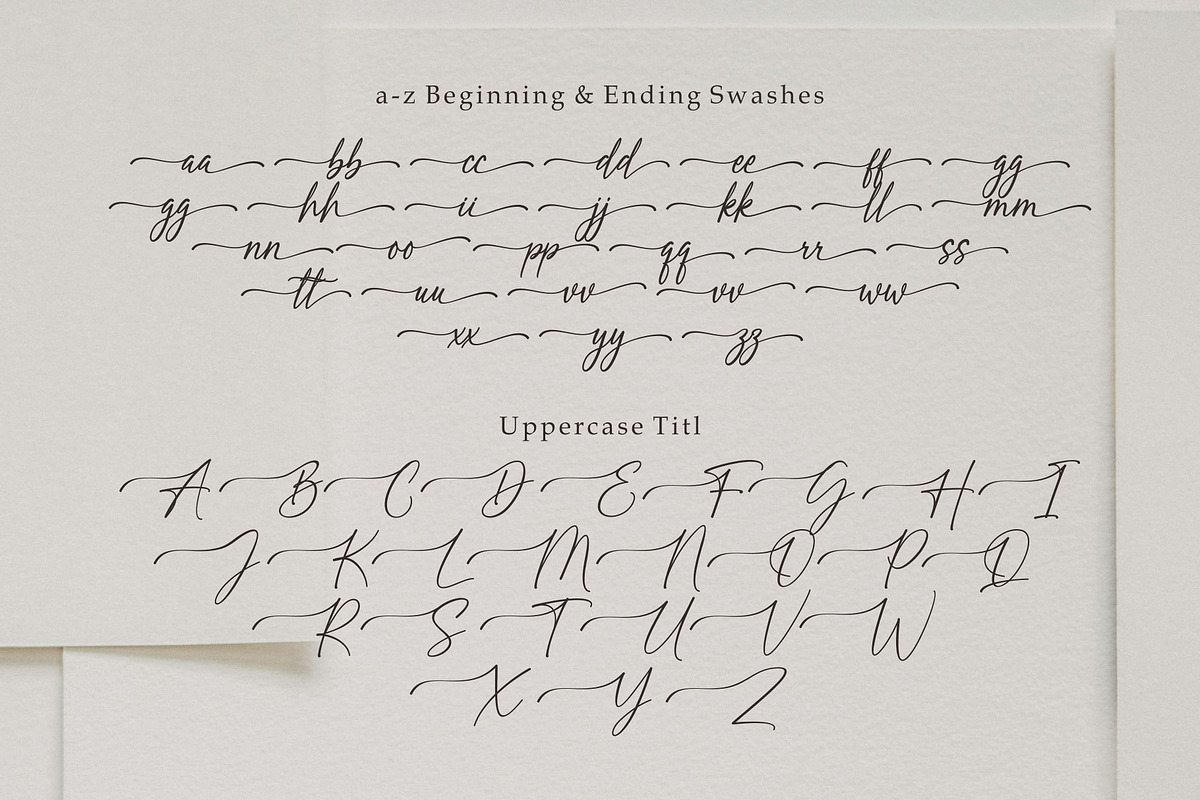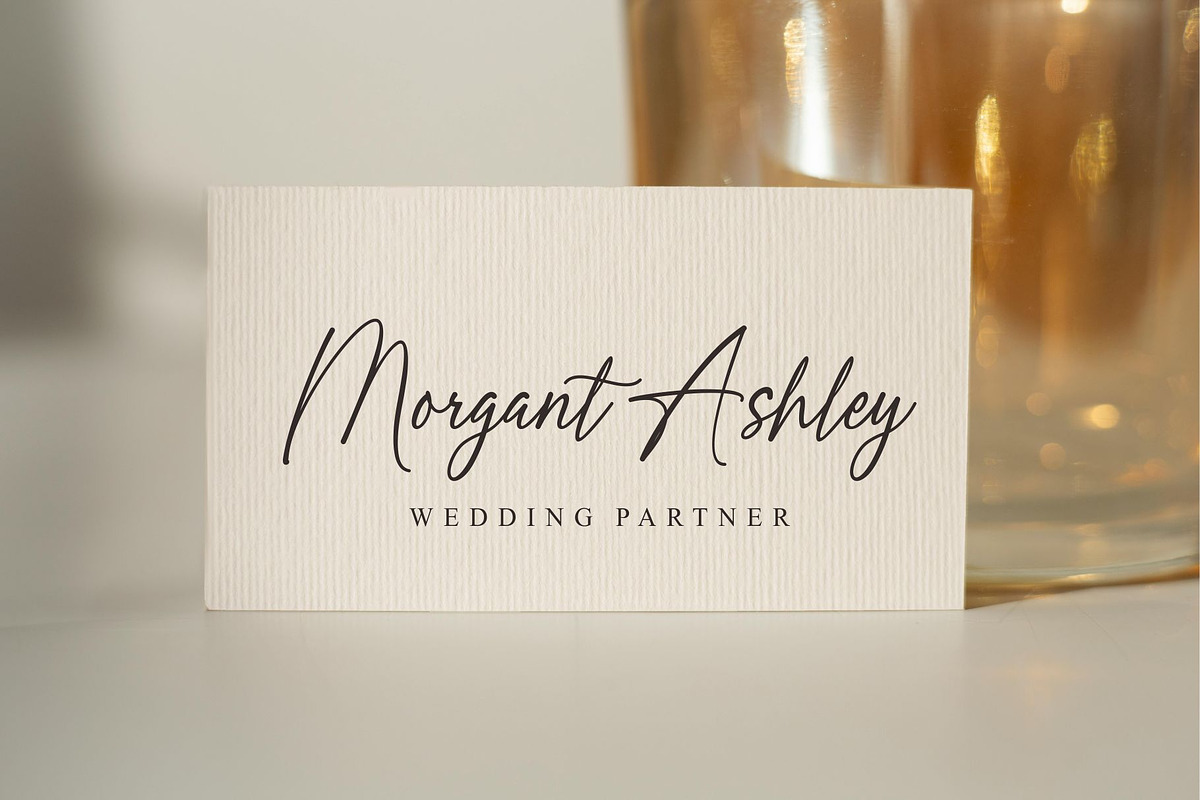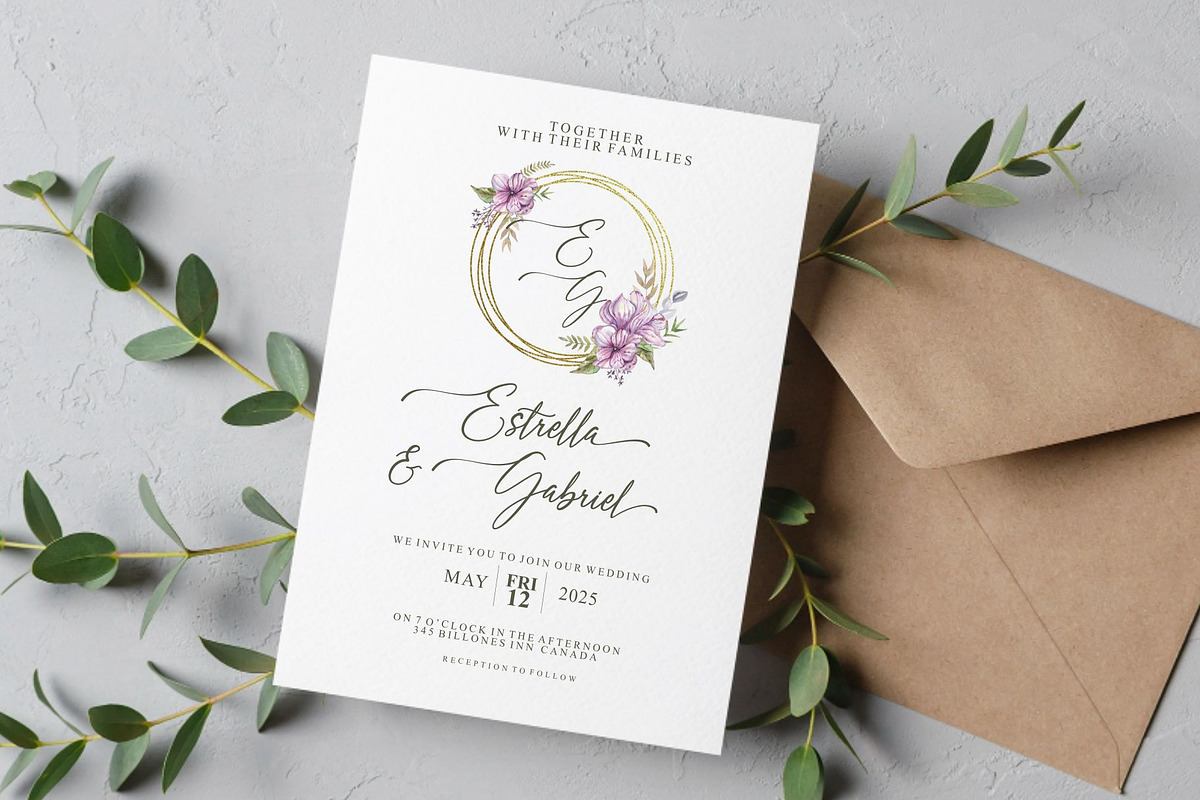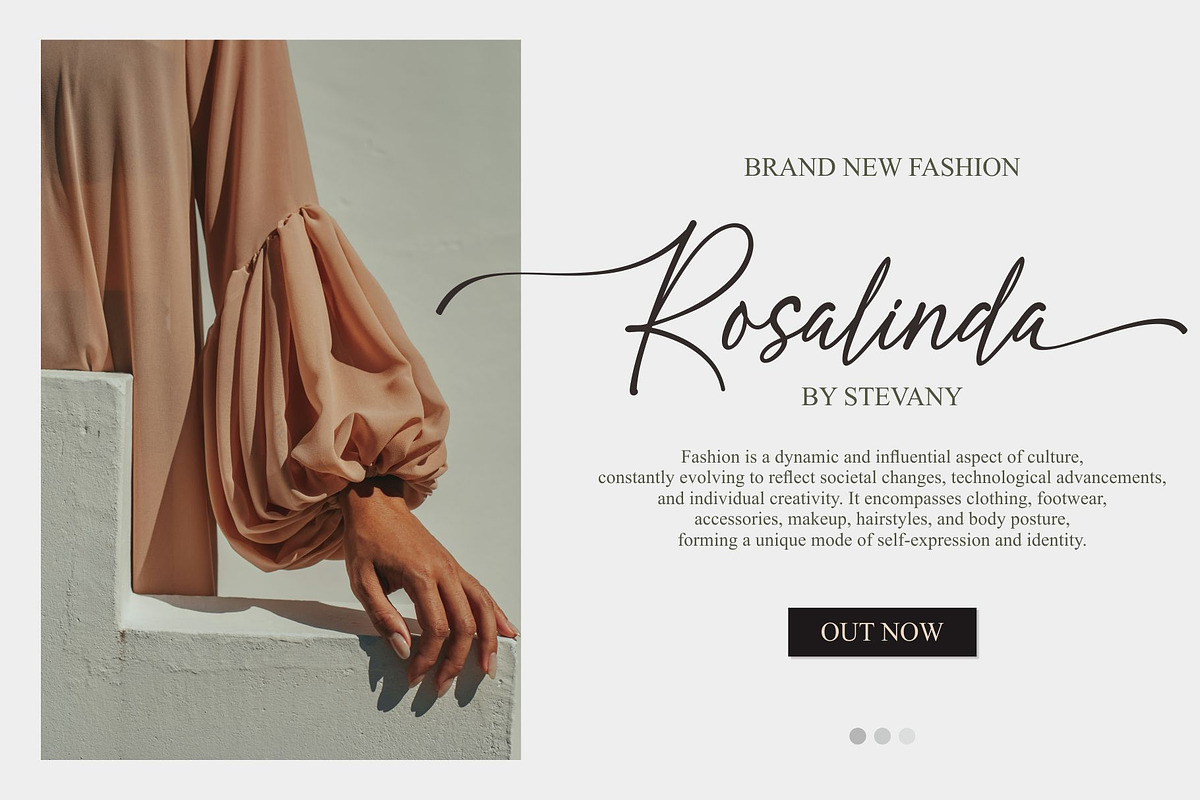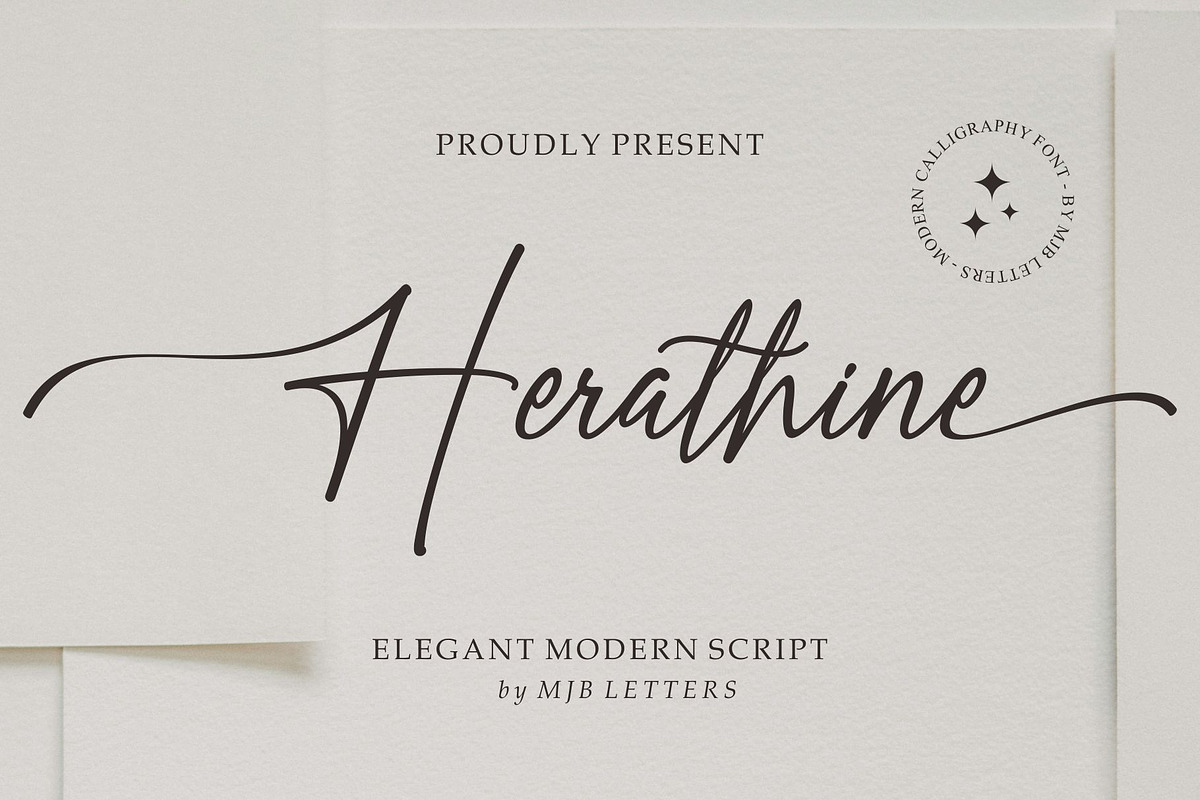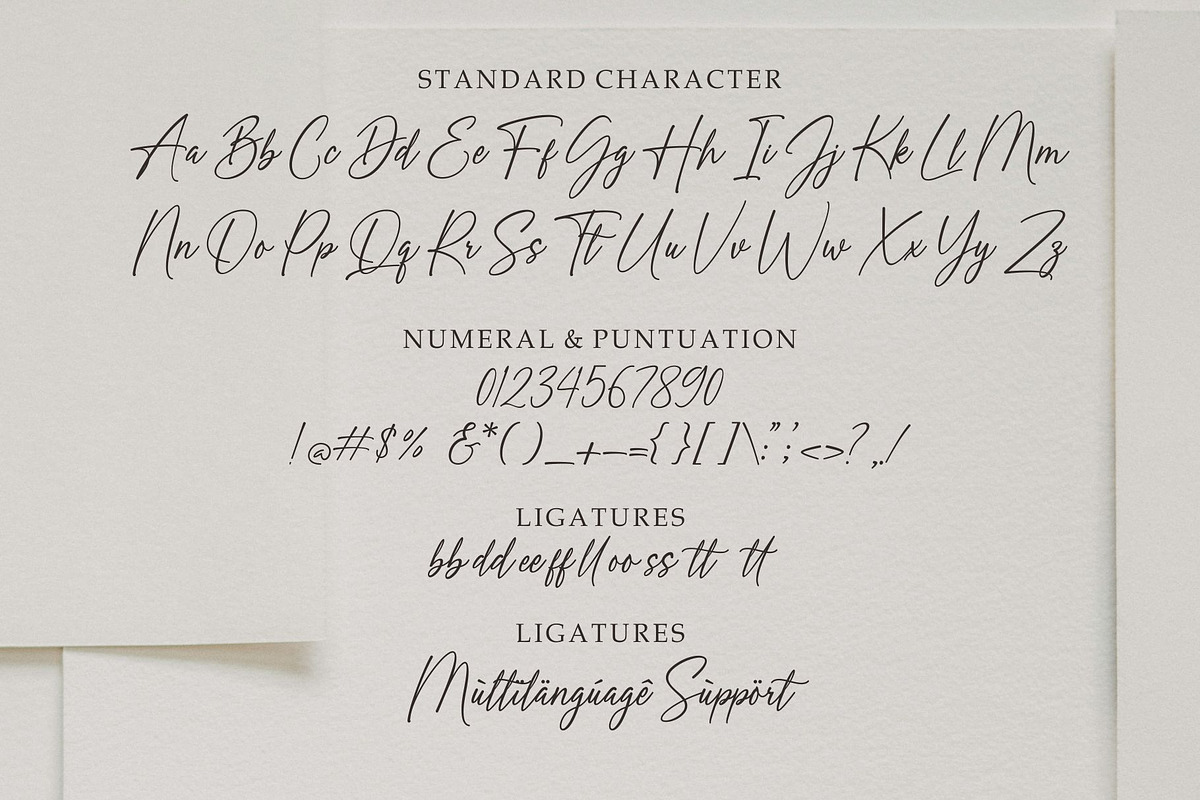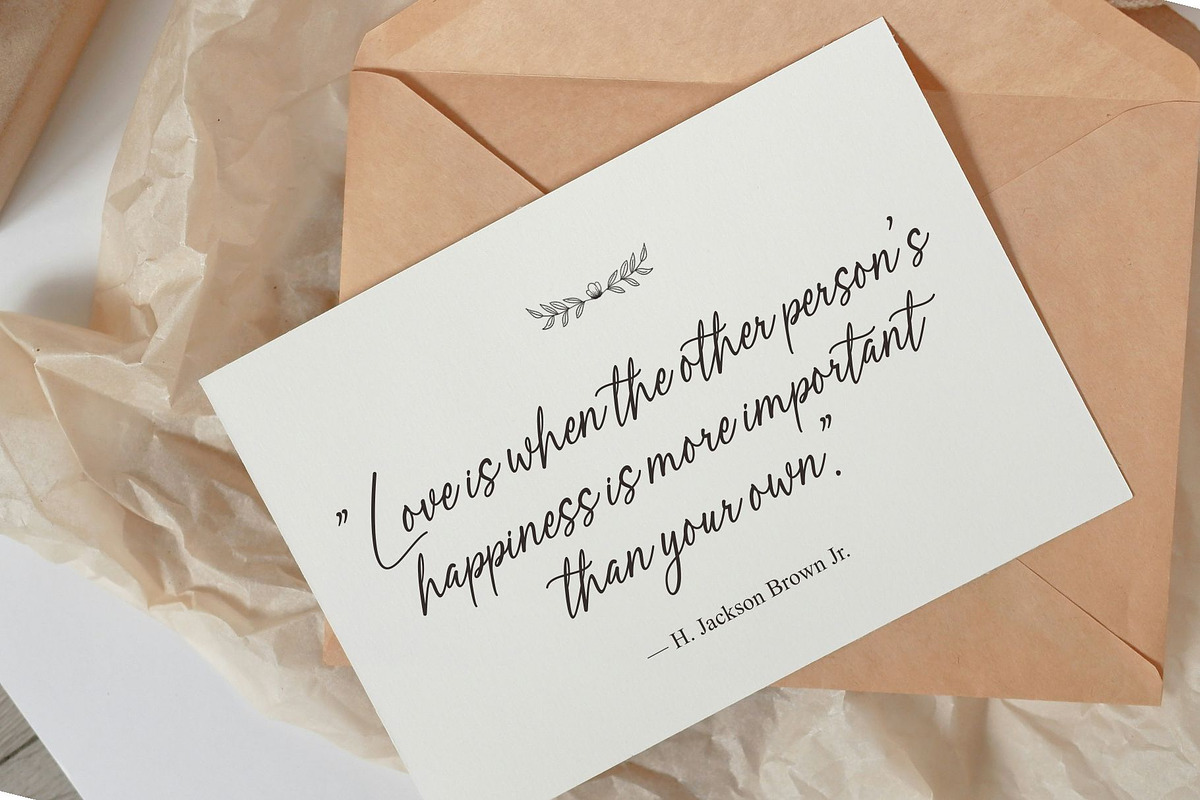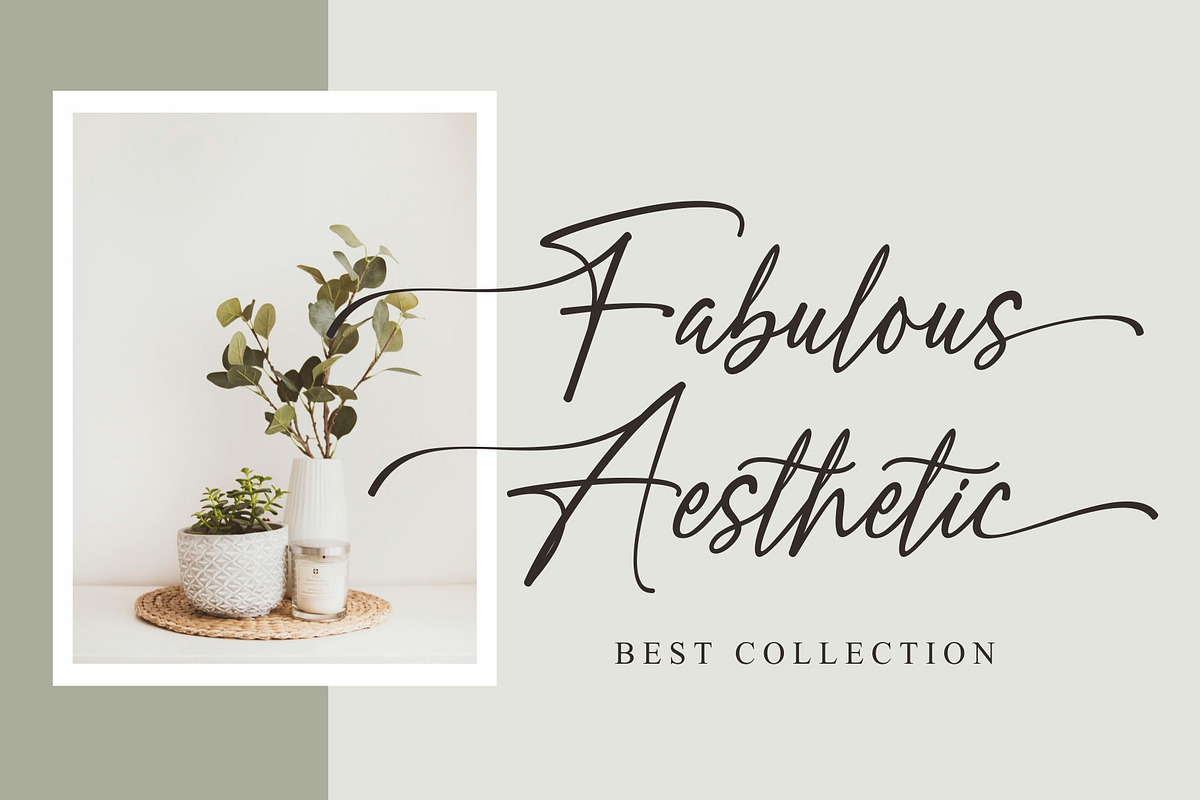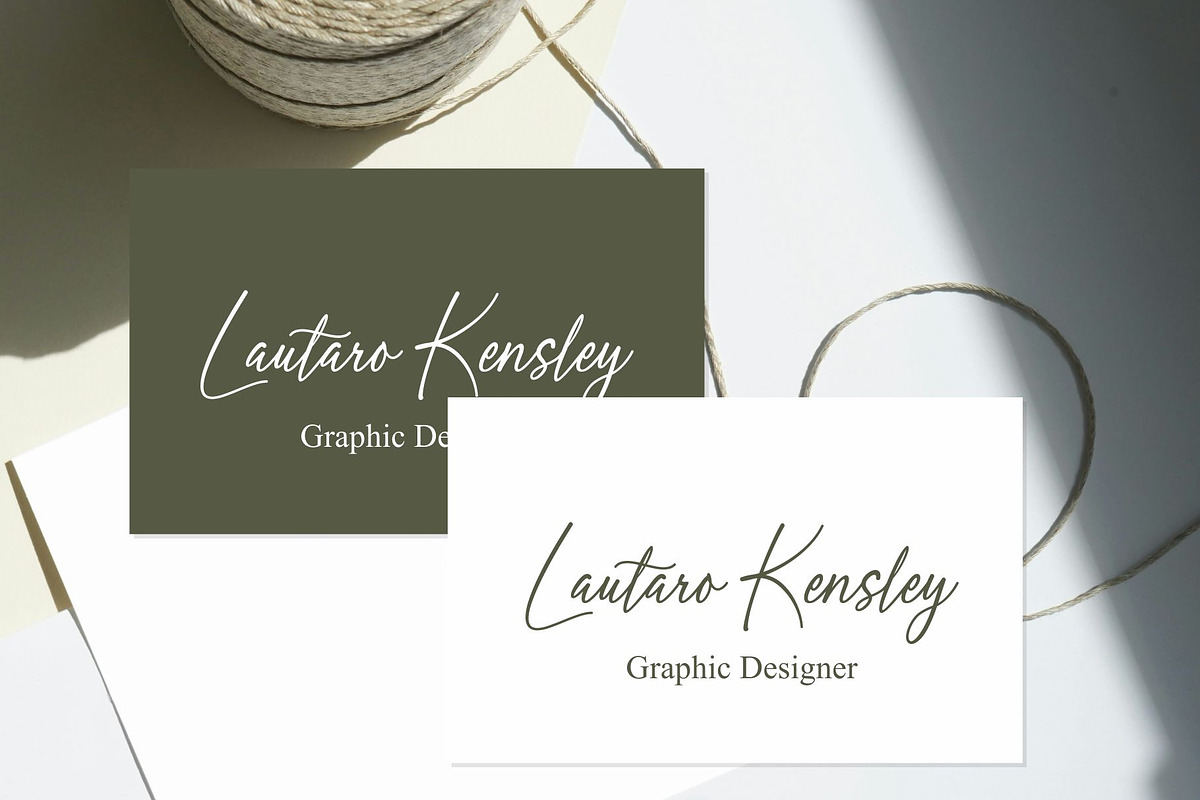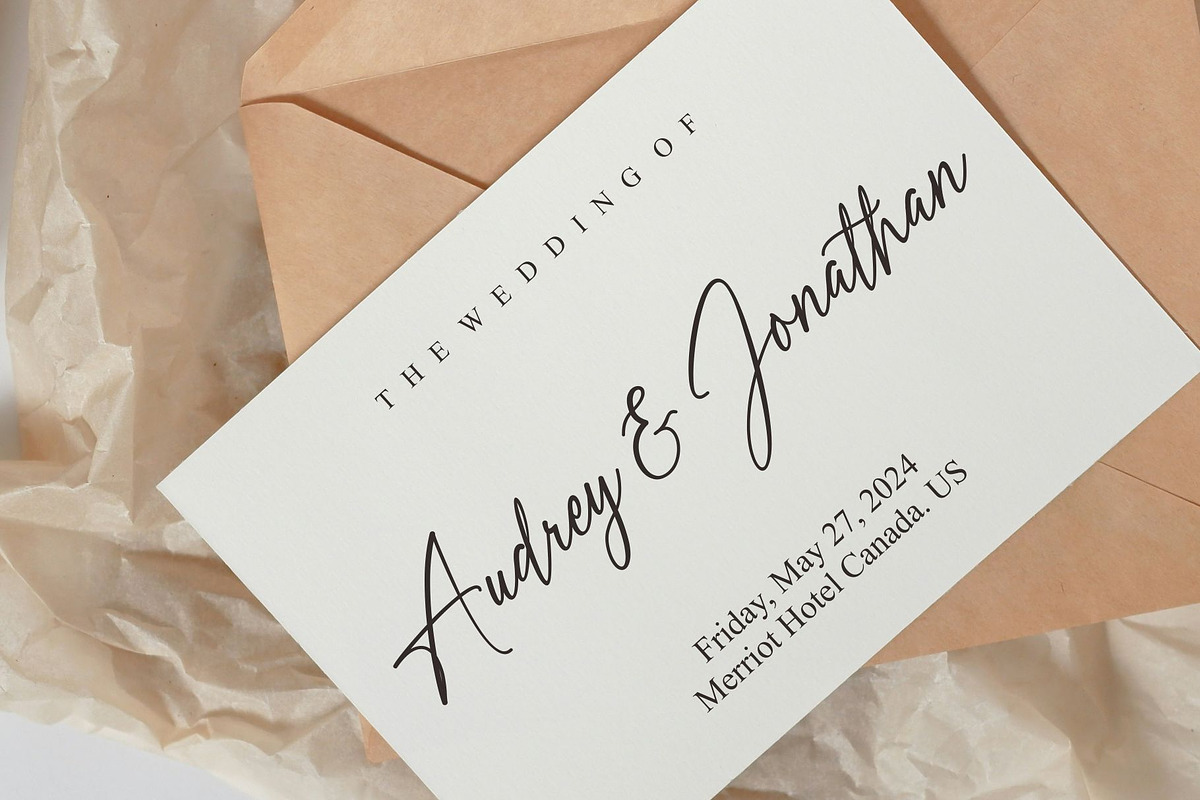
Herathine - Elegant Script
Herathine is a Modern Script font that exudes elegance and sophistication. Designed to bring a touch of class to any project, Herathine is perfect for creating stunning wedding invitations, luxurious branding, and eye-catching social media posts. Its fluid and graceful letterforms make it an excellent choice for any design that requires a personal and refined touch.
- Multilanguage Support
- Beginning & Ending Swashes